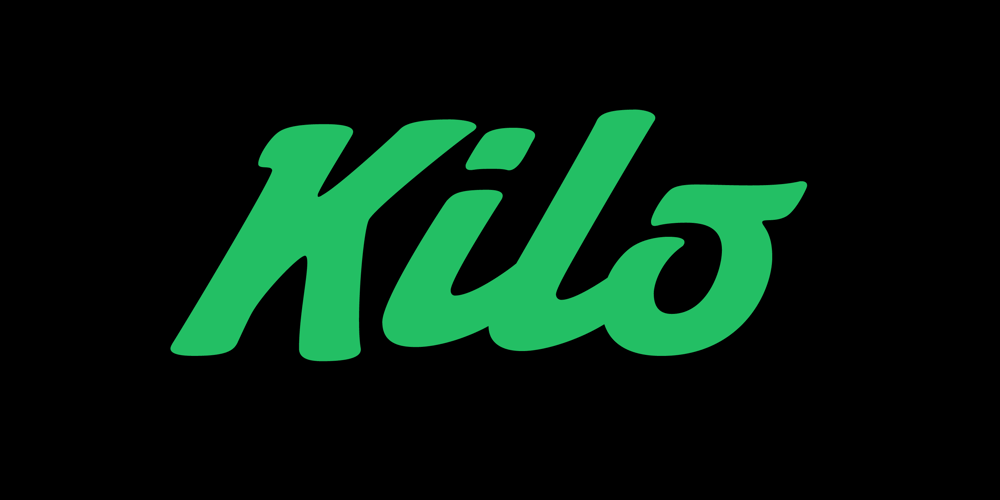
Kilo
Kilo font
Kilo Font Family was designed by Alejandro Paul, Angel Koziupa and published by Sudtipos. Kilo contains 1 styles and family package options. Kilo is not only almost exactly equal to the mass of one liter of water. It also flows like one. This font has edgy caps that certainly know how to keep it together at high velocities, and vowels that grin and salute you while speeding by. Sometimes you want it connected and sometimes, well, freestyle. Kilo abides. It has plenty of alternates to fulfill your three wishes and mix a hell of a cocktail for you.